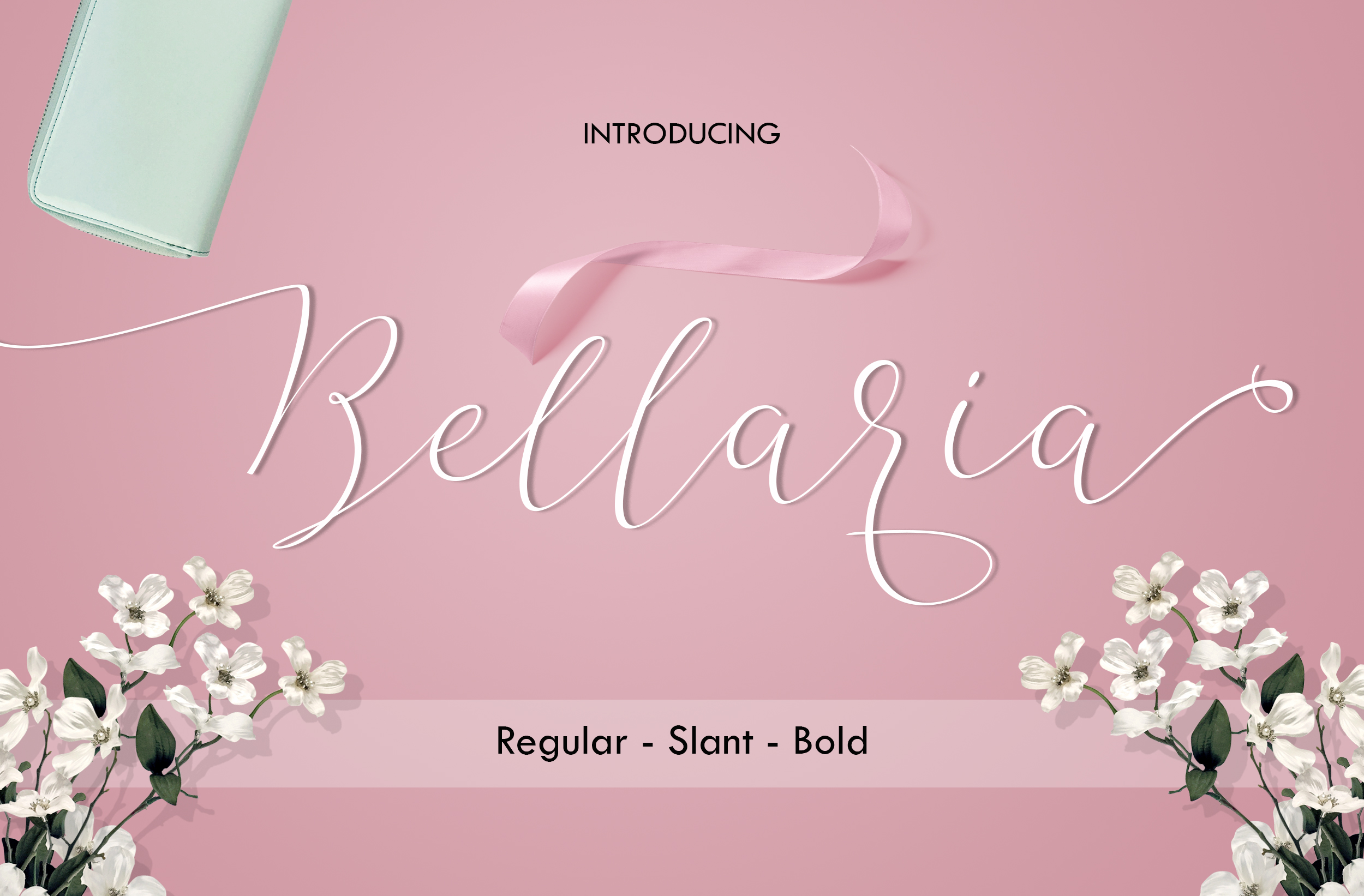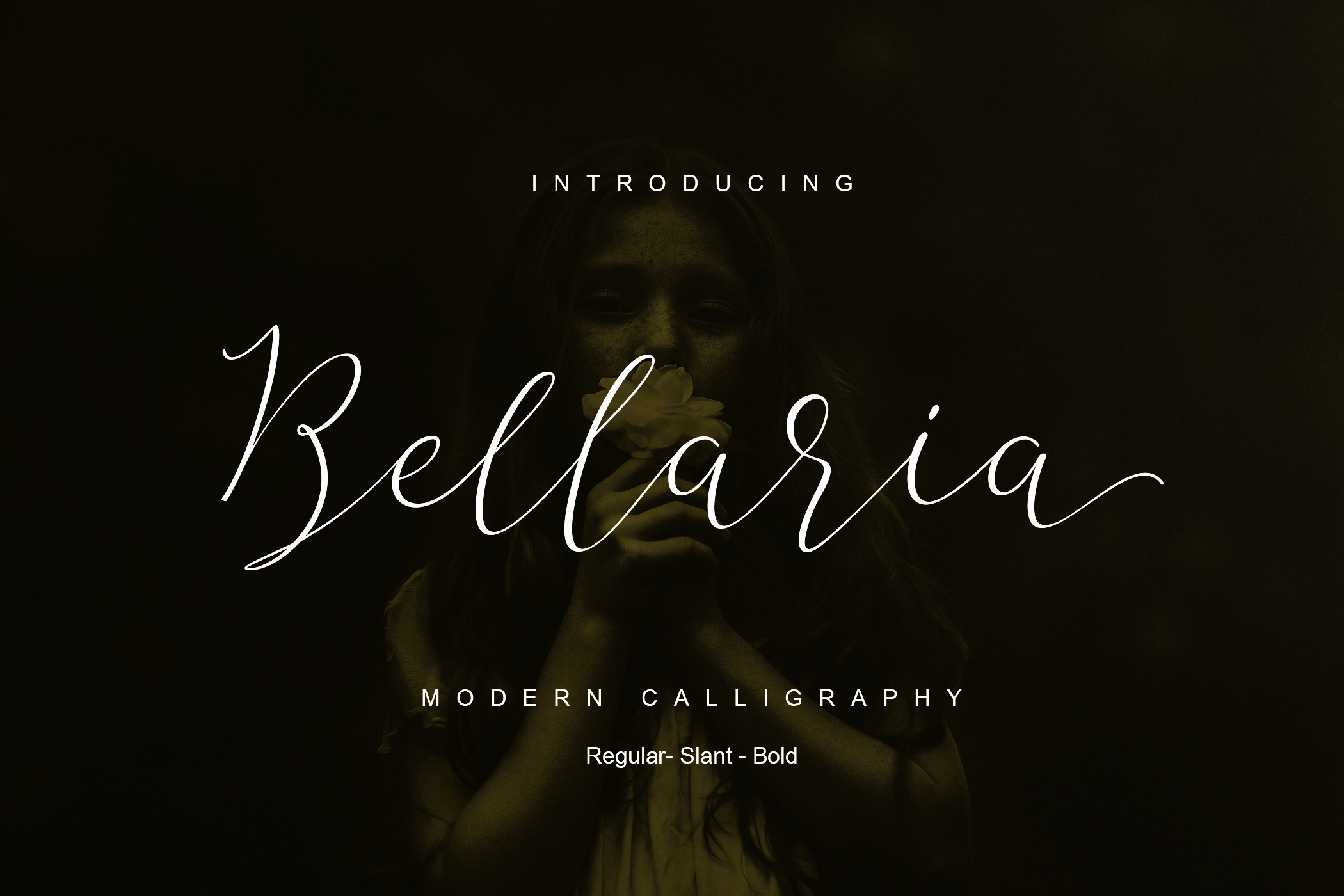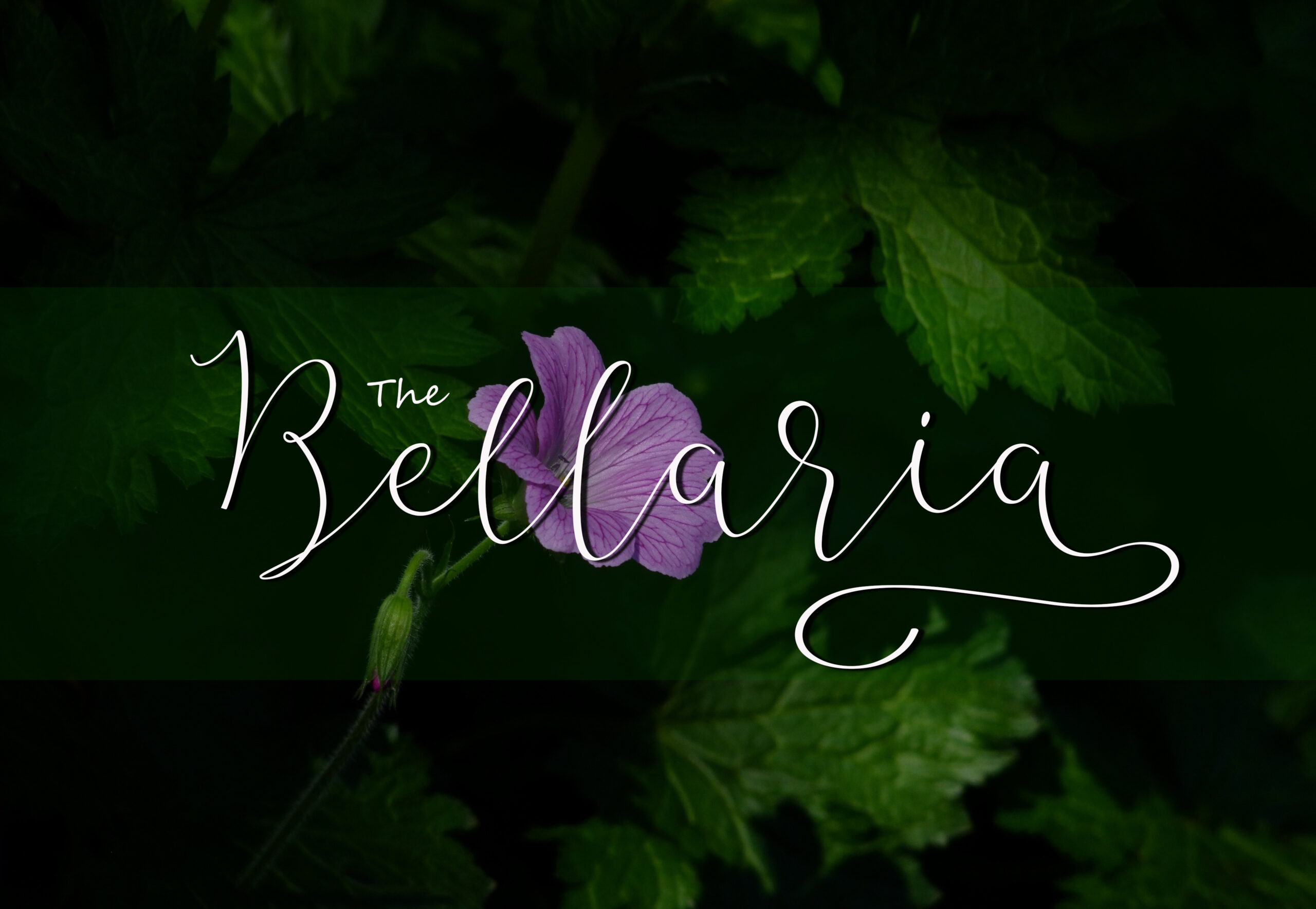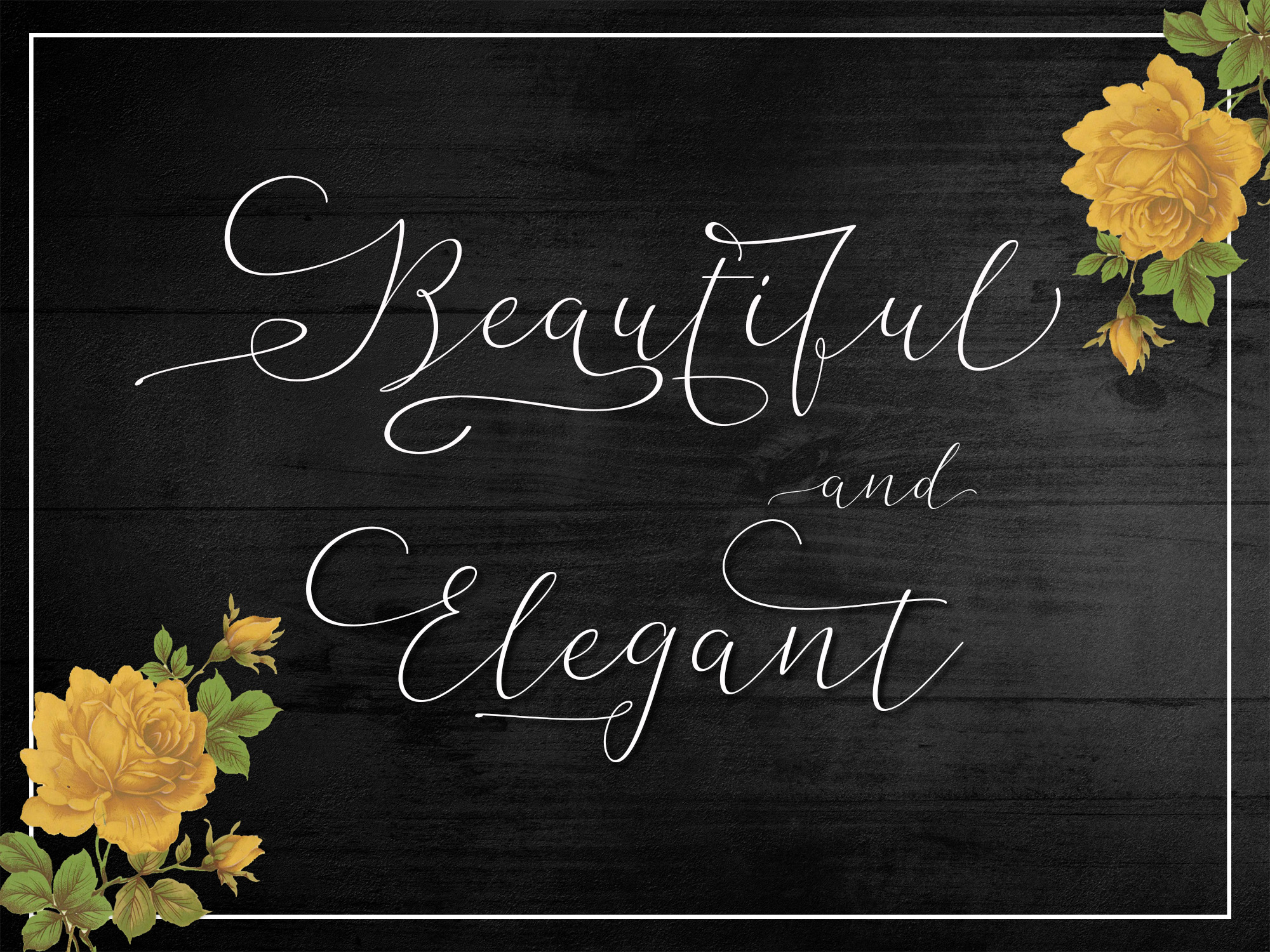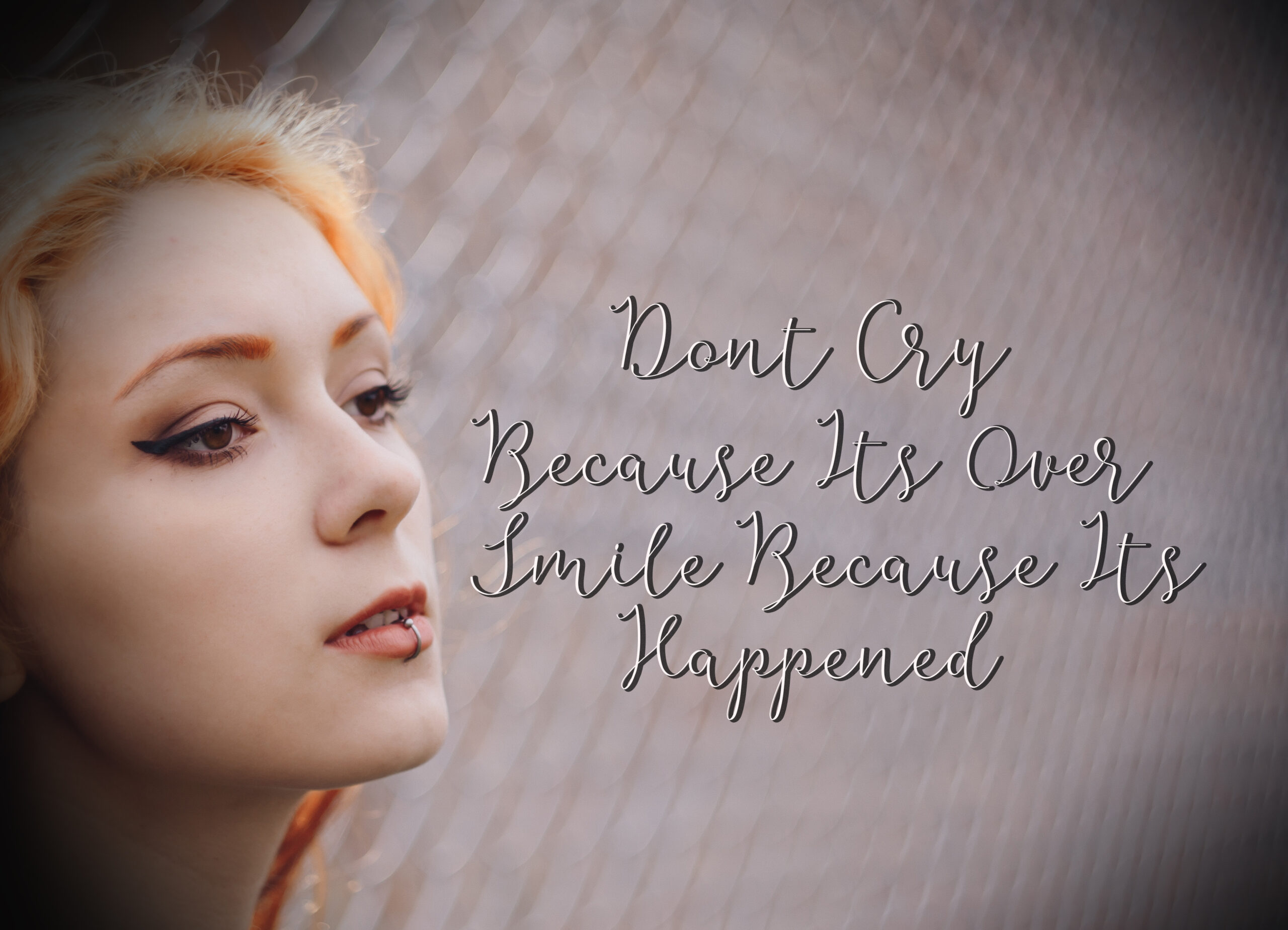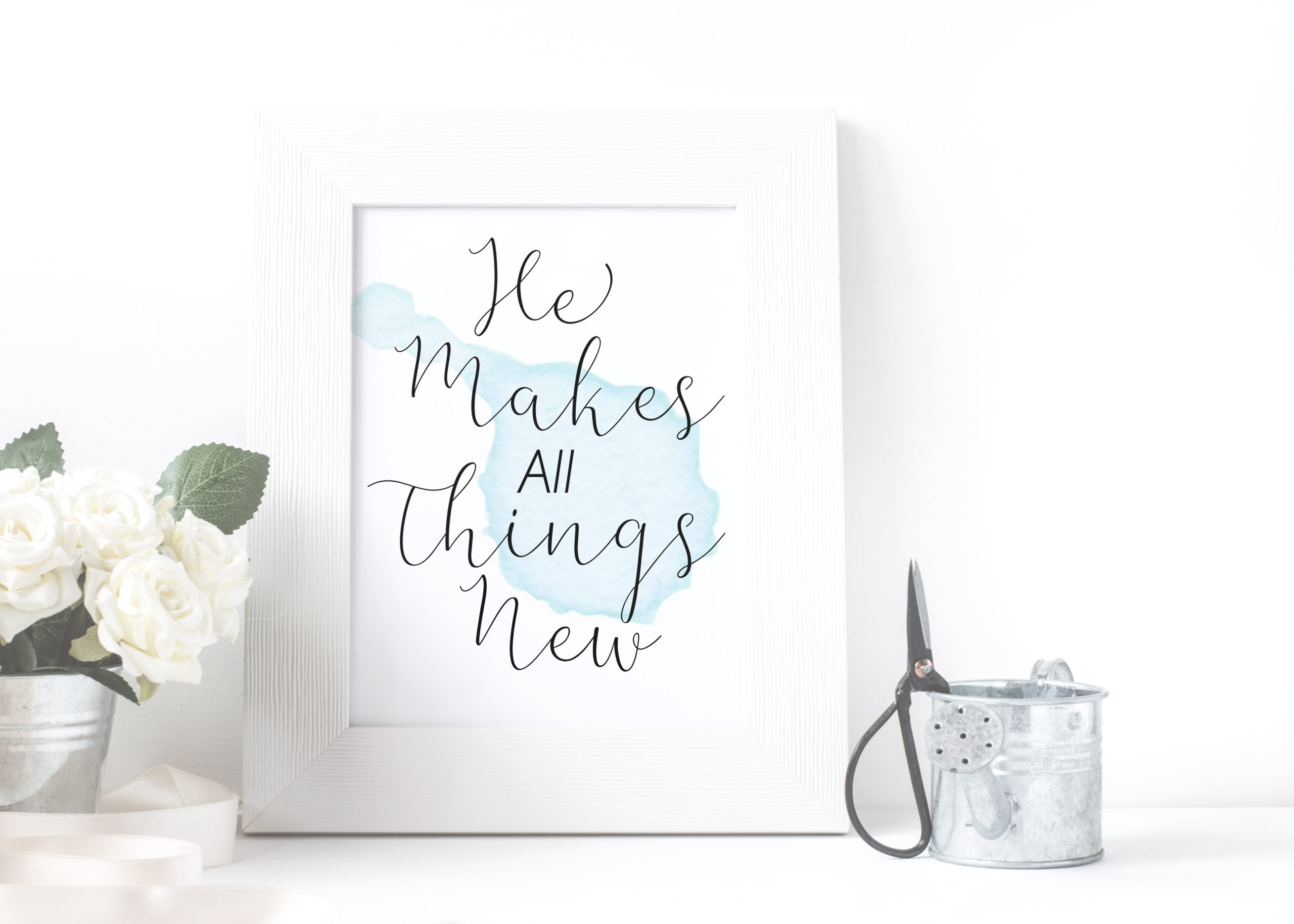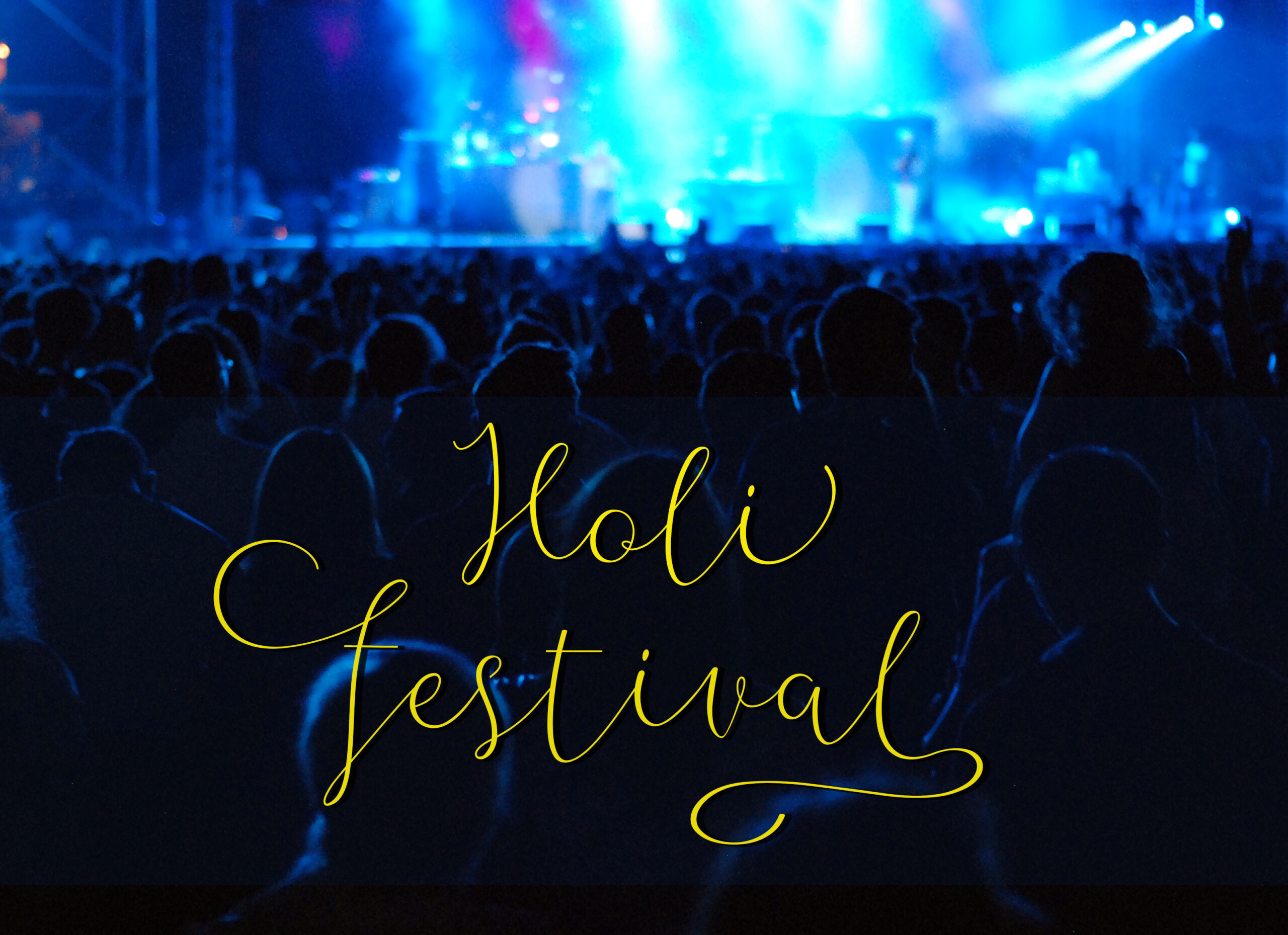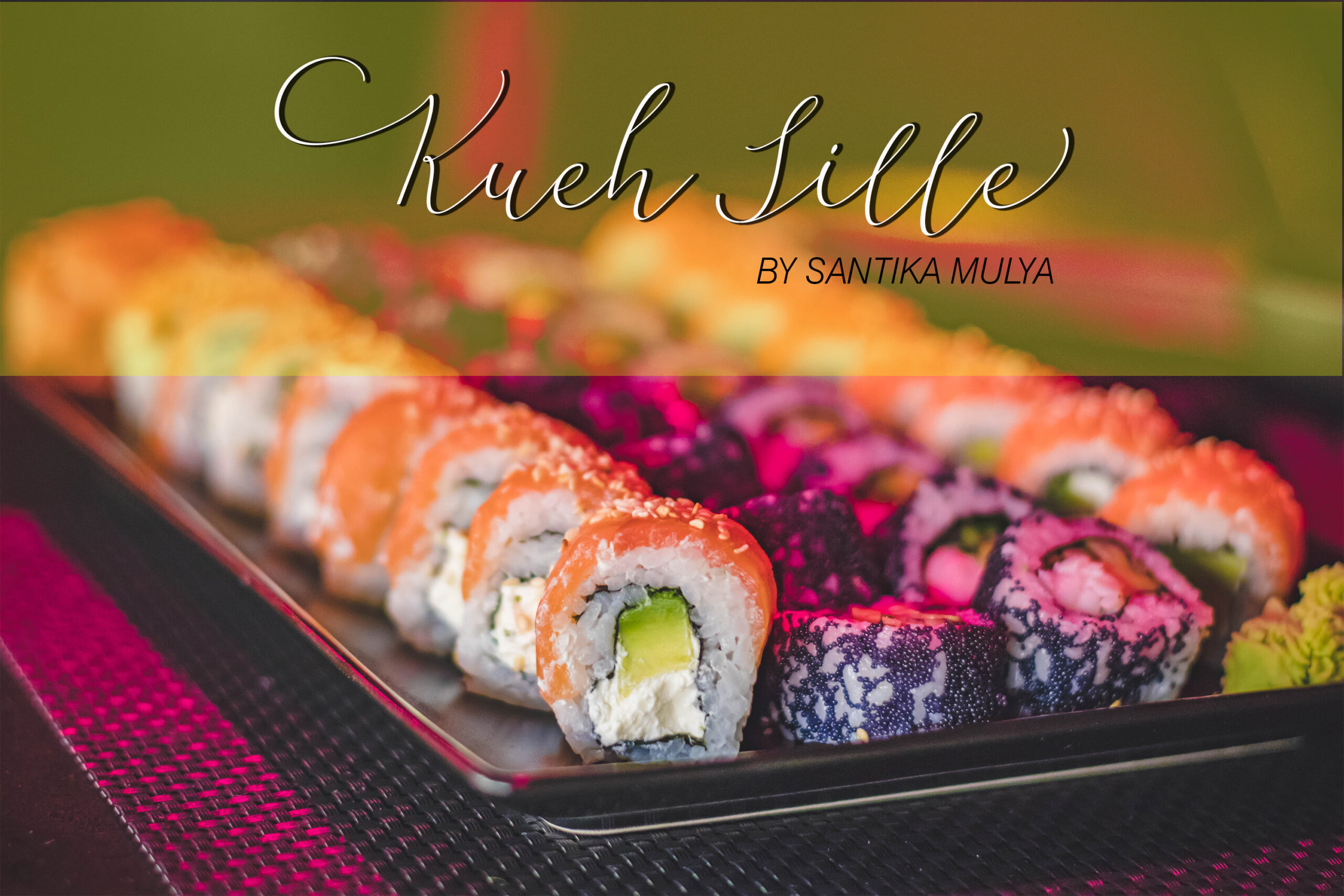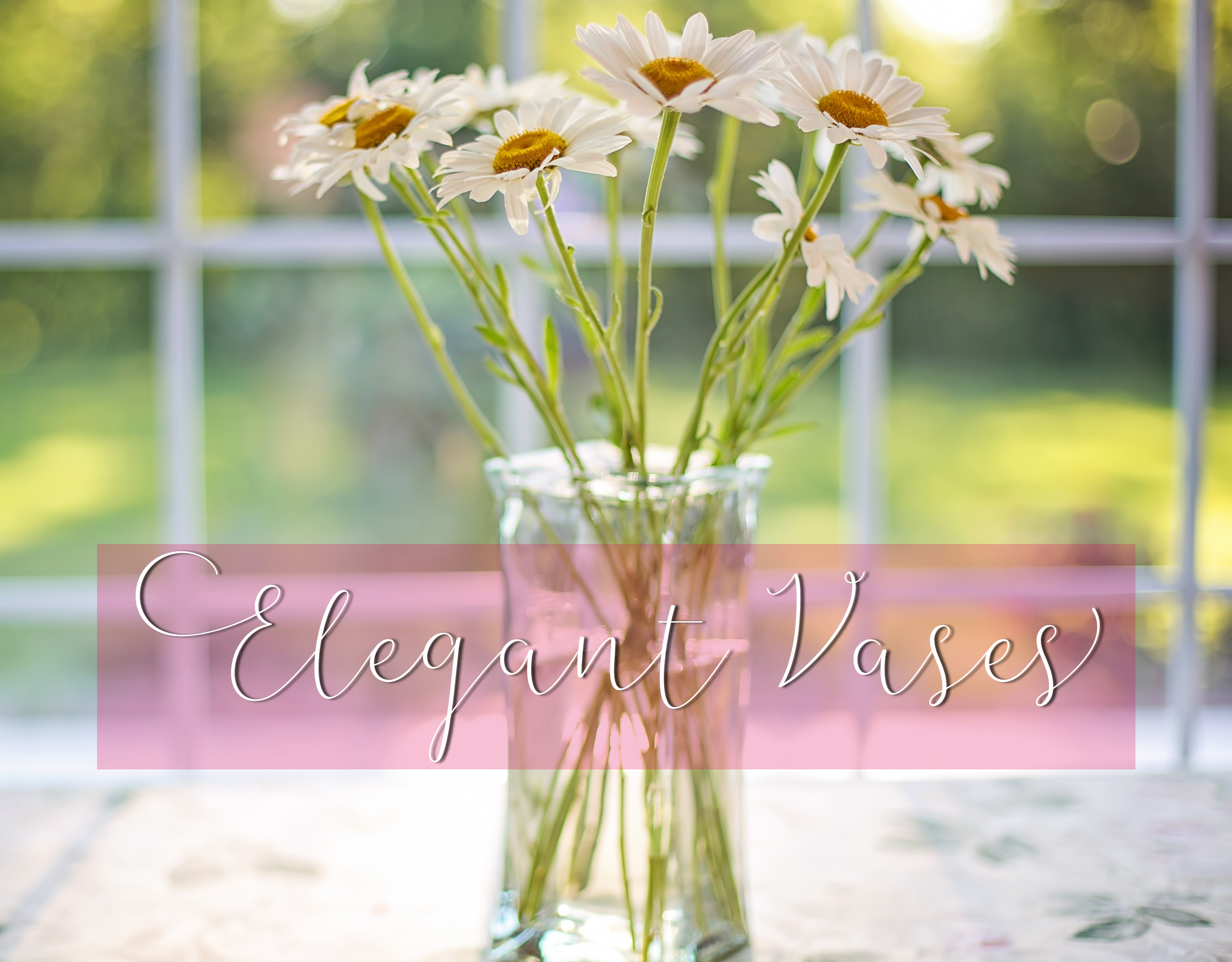
Bellaria Script Font
About Bellaria Script Font
The Bellaria Script is a stylish, handwritten calligraphic-style font.
It features a contemporary design and has a flowing baseline. Because of it’s classic and elegant touch, the Bellaria font can be used for many different purposes.
The font will come in 2 variations:
– Bellaria Regular
– Bellaria Slant